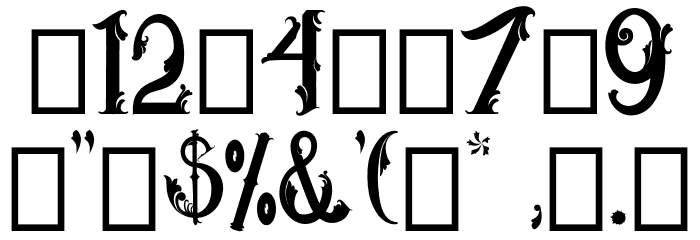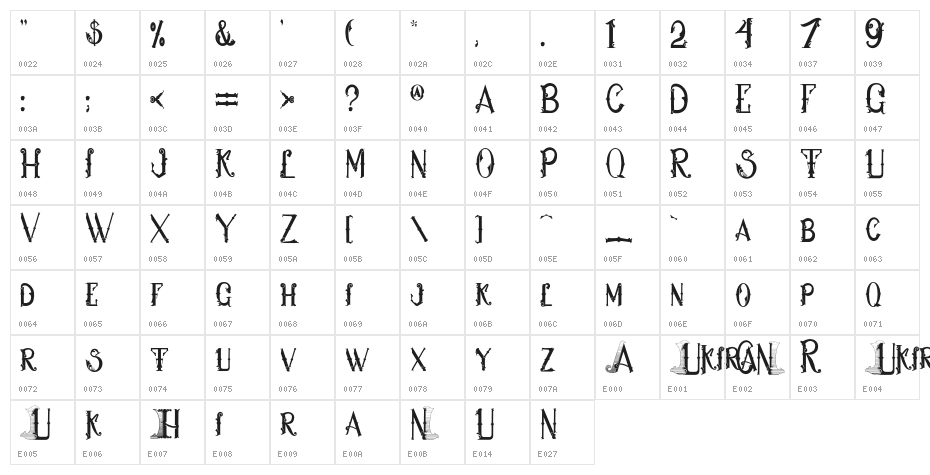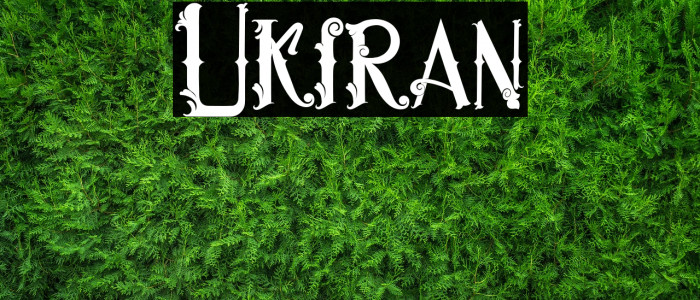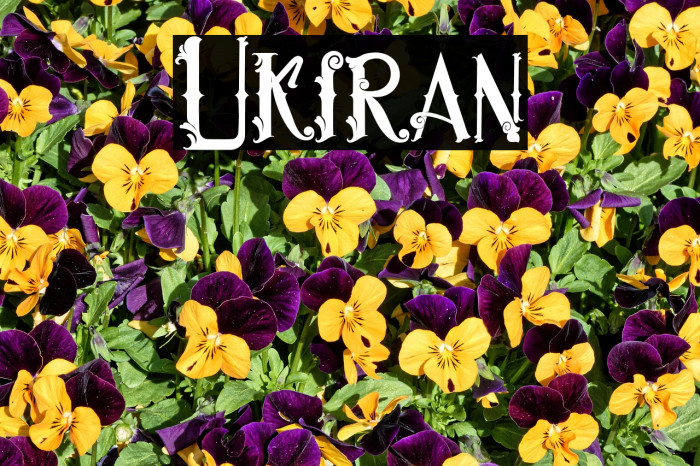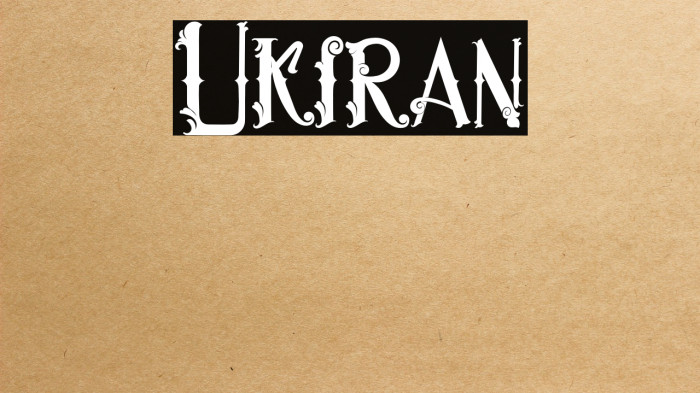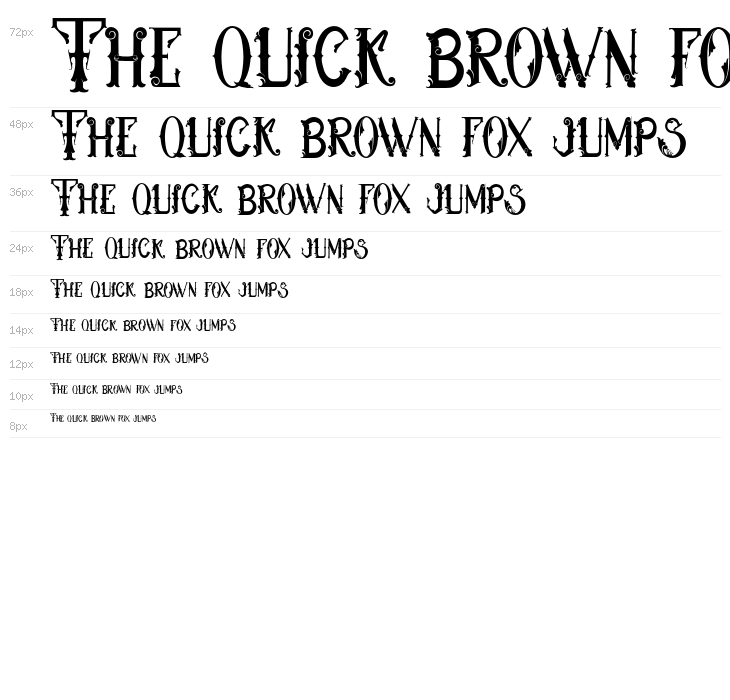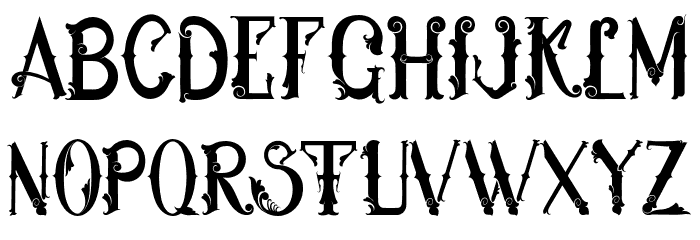
Ukiran Font
Ukiran Description
This font features an intricate and decorative style, characterized by ornate swirls and embellishments that extend from the main strokes of each letter. The uppercase and lowercase letters maintain a consistent design, with each character adorned with unique flourishes that add a sense of elegance and complexity. The numbers and special characters follow the same decorative theme, ensuring a cohesive look across all elements. The overall appearance is reminiscent of vintage or classical typography, making it suitable for projects that require a touch of sophistication and artistry.
| Proposed Projects | Ideal for wedding invitations, luxury branding, vintage posters, and artistic projects. |